Clean font directory but Google Fonts already covers open-source licenses.
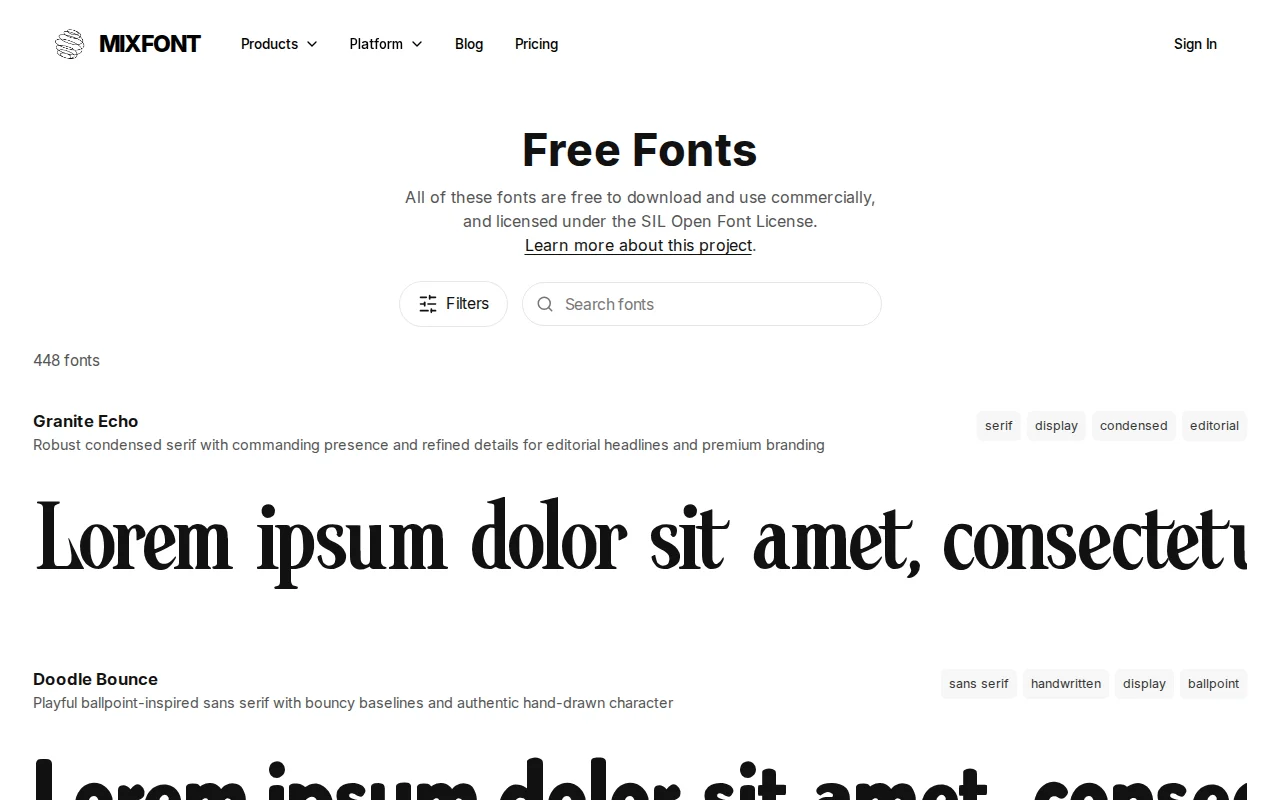
AI-generated font library competing with Google Fonts and DaFont.
For the past few months I've been working up to this launch of Free Fonts - it's a collection of completely free, open source, and original fonts that can be used for any project, including commercial ones.
The collection has over 400 fonts in a variety of novel styles, from simple sans serifs to decorative handwritten and blackletter fonts. It will also continue to be updated and grow over time.
Designers and developers today have essentially two options when it comes to choosing and creating fonts. Either use a Google Font, which can be limited in terms of unique and novel selections, or pay a significant amount of money for font licenses from a few large players in the space like Monotype. The problem today is that it can be difficult to find a novel, unique font for an affordable price. Our hope is that this collection can be a starting point for solving this problem.
What makes this project different is that every font in the collection was generated completely by AI, and is a novel set of letterforms. This is what makes it possible for me to launch the project with confidence that these fonts can be freely used in any type of project.
The AI workflow behind this project is also accessible on the same site. Our model was trained on a variety of images across the internet and then runs a full pipeline to transform a consistent set of letters into a single downloadable TTF font file. It can be prompted from a text prompt, or a sample image that contains an image of some text.
Font licensing is a complex world, and I deeply believe that it is ripe for a change. My hope is that this launch can spark a new conversation on the future of typography and how it can be freely and easily used by designers and developers over time.